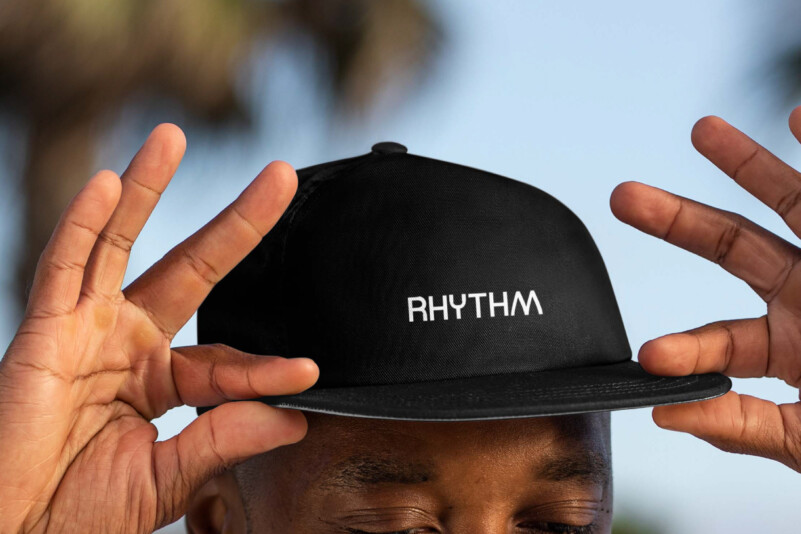
Out Of Topic Font
Out Of Topic Font is a strong masculine and modern display font by RaisProject. This font has a looks that can be used on a variety of display types and make you feel trendy! Many business will suitable for this font including sports, racing, clothing, movies, gaming etc